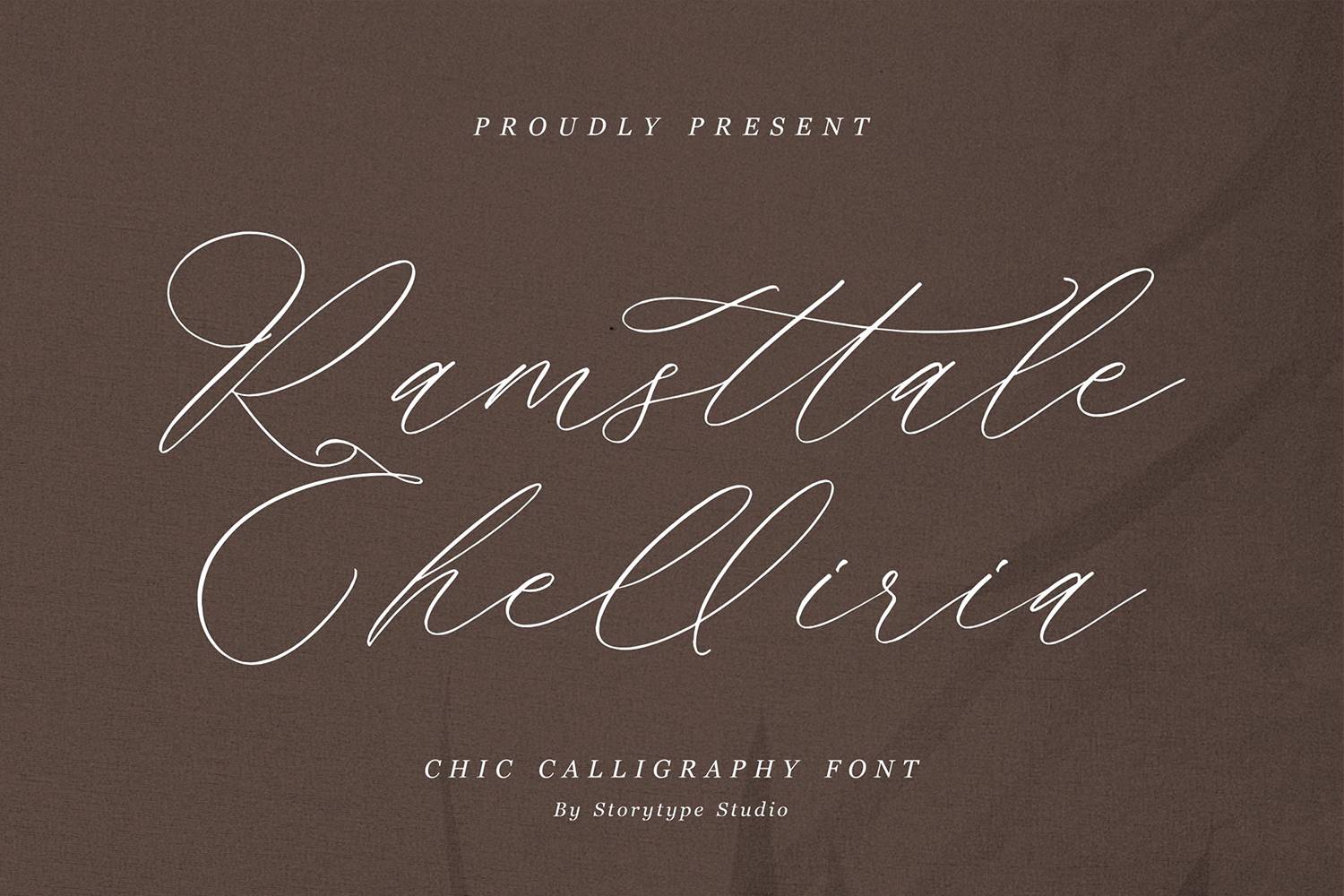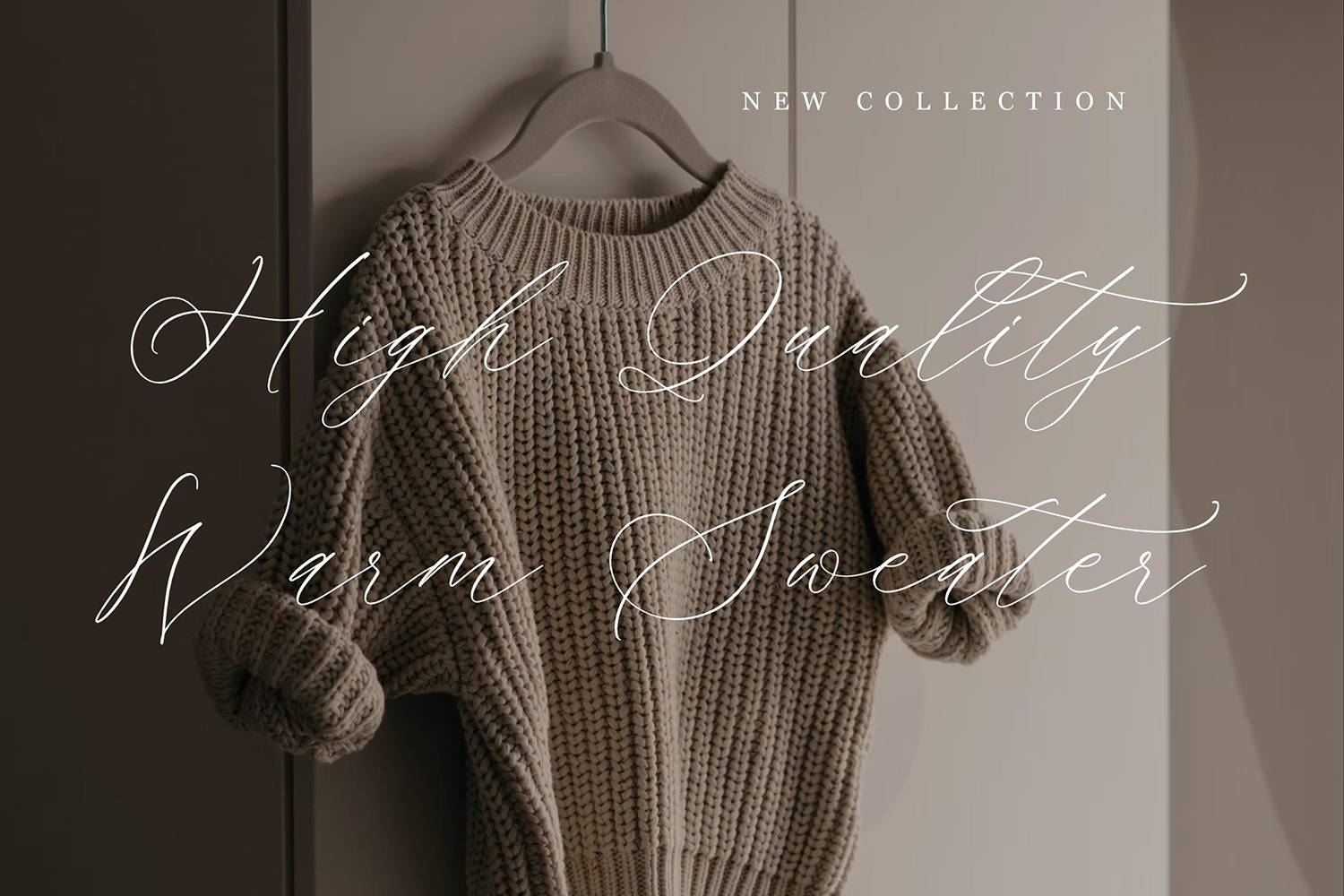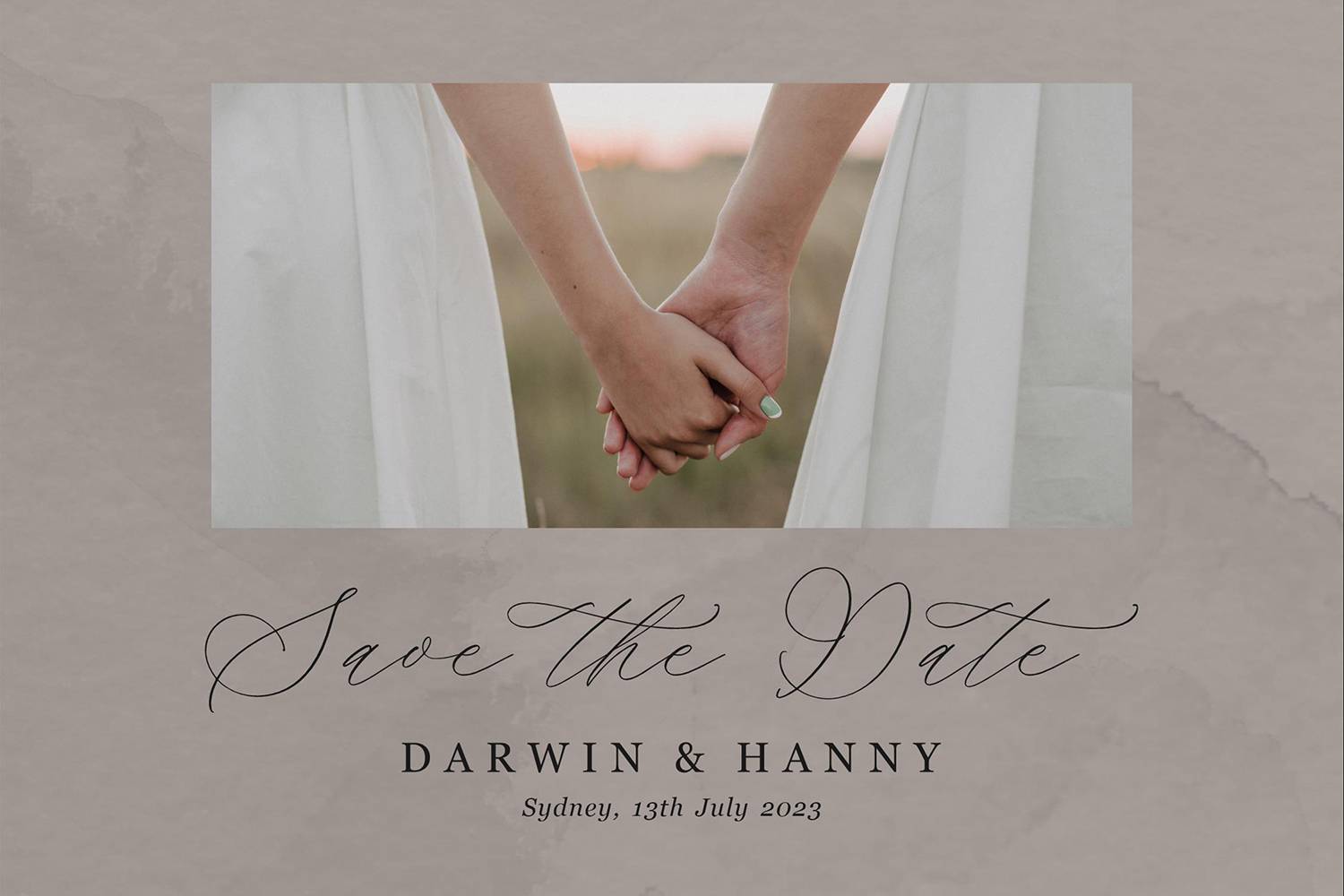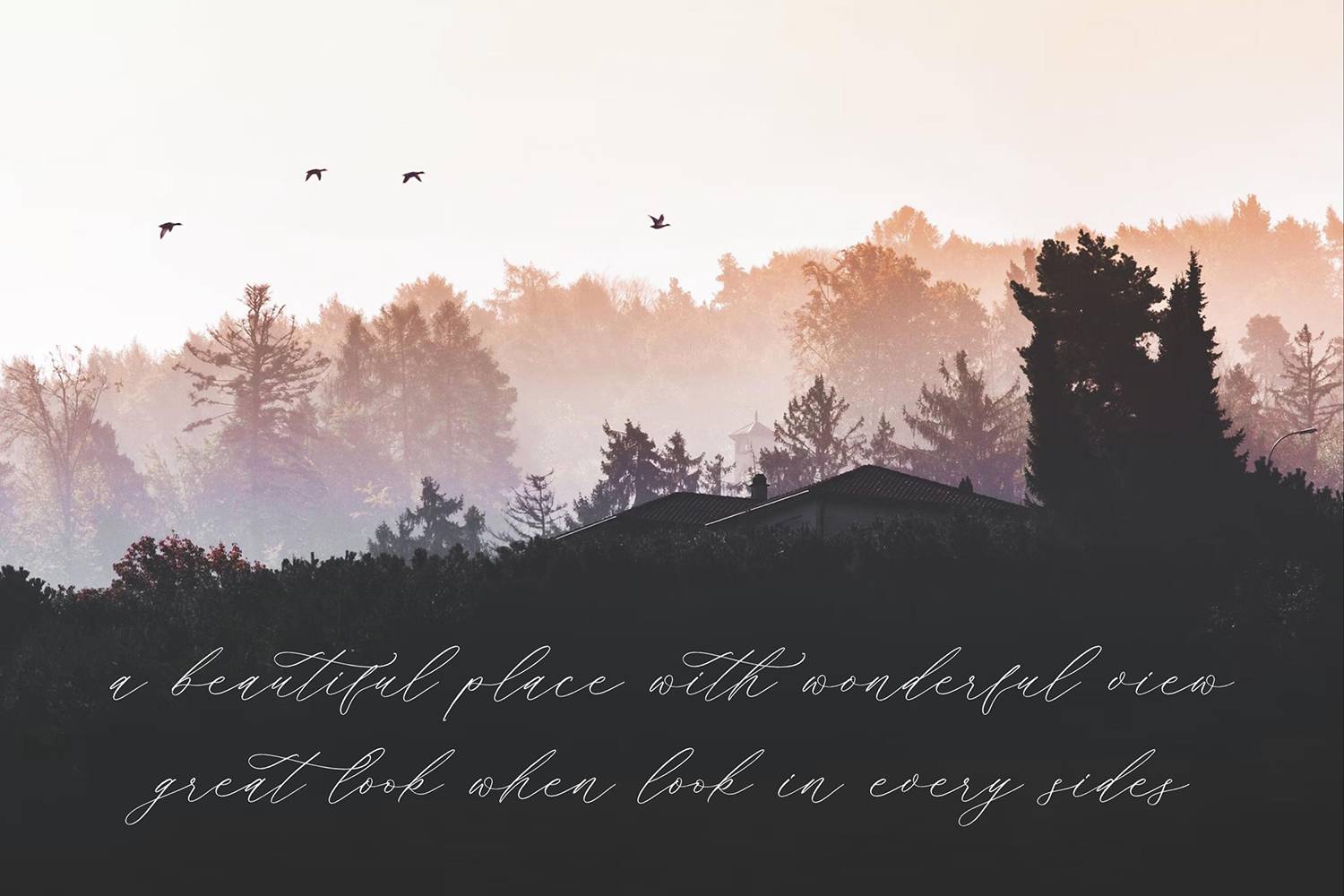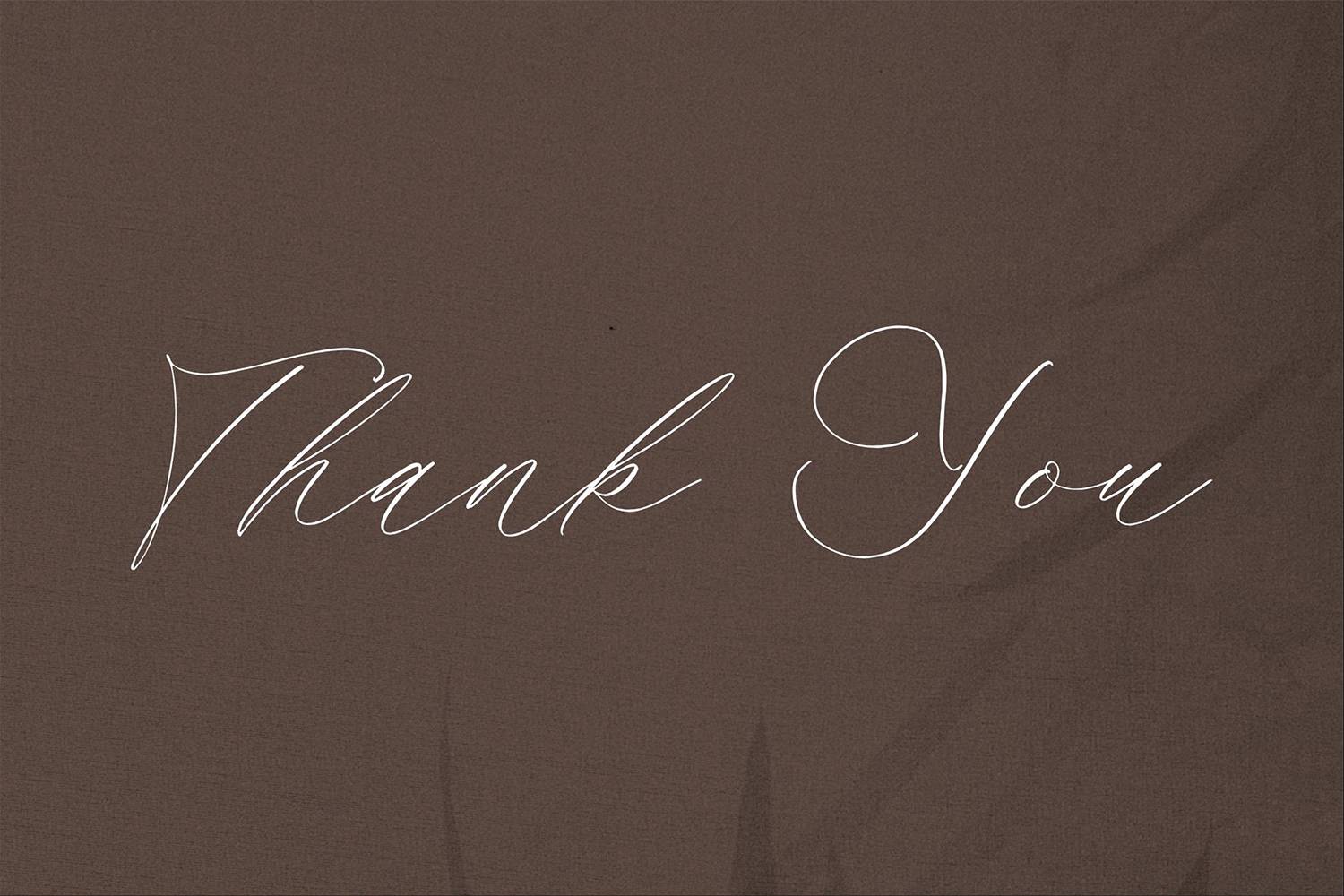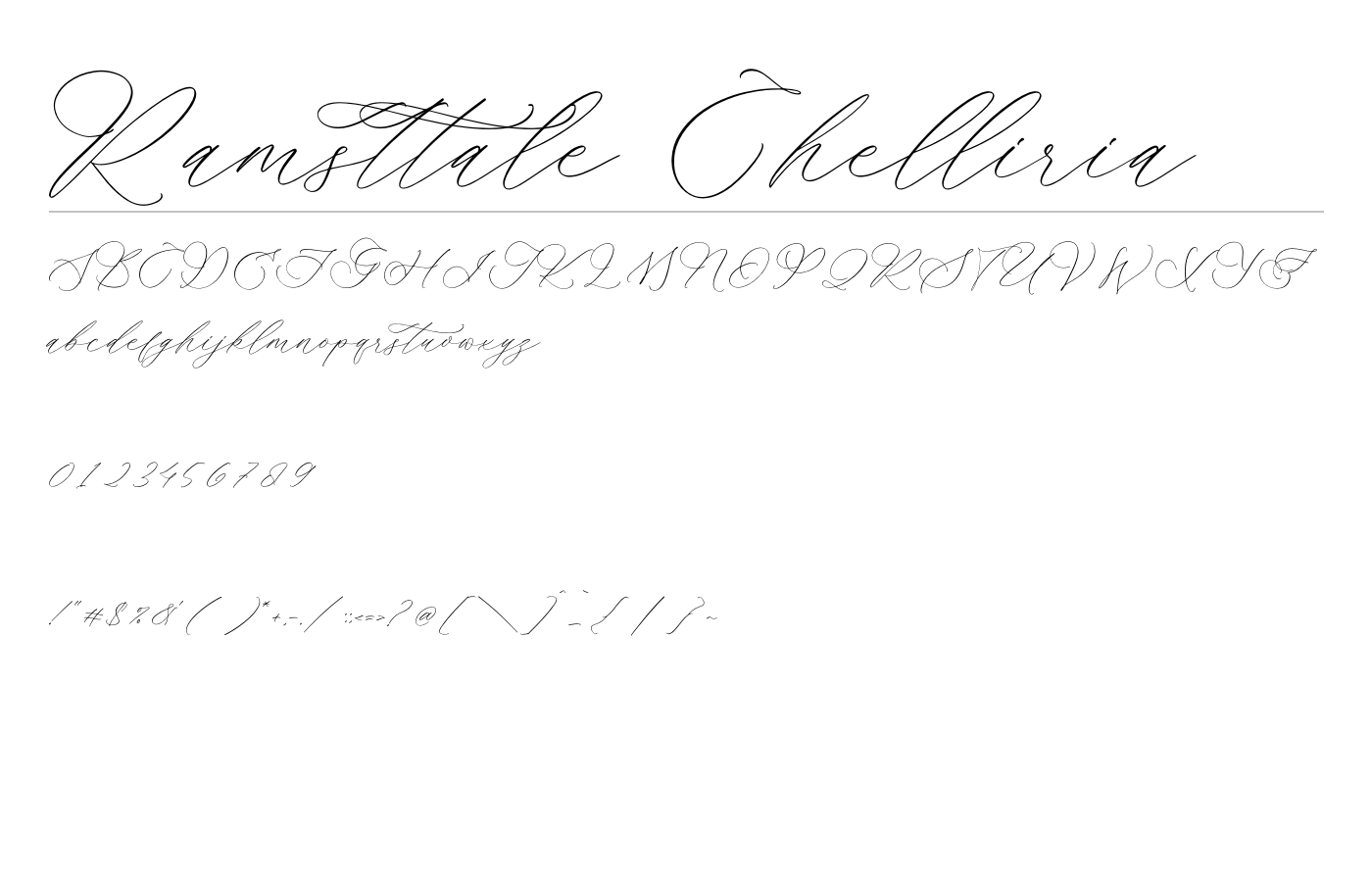
Ramsttale Chelliria is a delicate, elegant script font with fine, flowing lines that evoke a sense of grace and sophistication. Its slender strokes and ornate, cursive letterforms make it perfect for luxury branding, wedding invitations, and elegant editorial design where a refined, handwritten touch is desired. This font adds a stylish, romantic flair to any project that seeks to convey beauty and sophistication.
Ramsttale Chelliria Font
About Ramsttale Chelliria Font